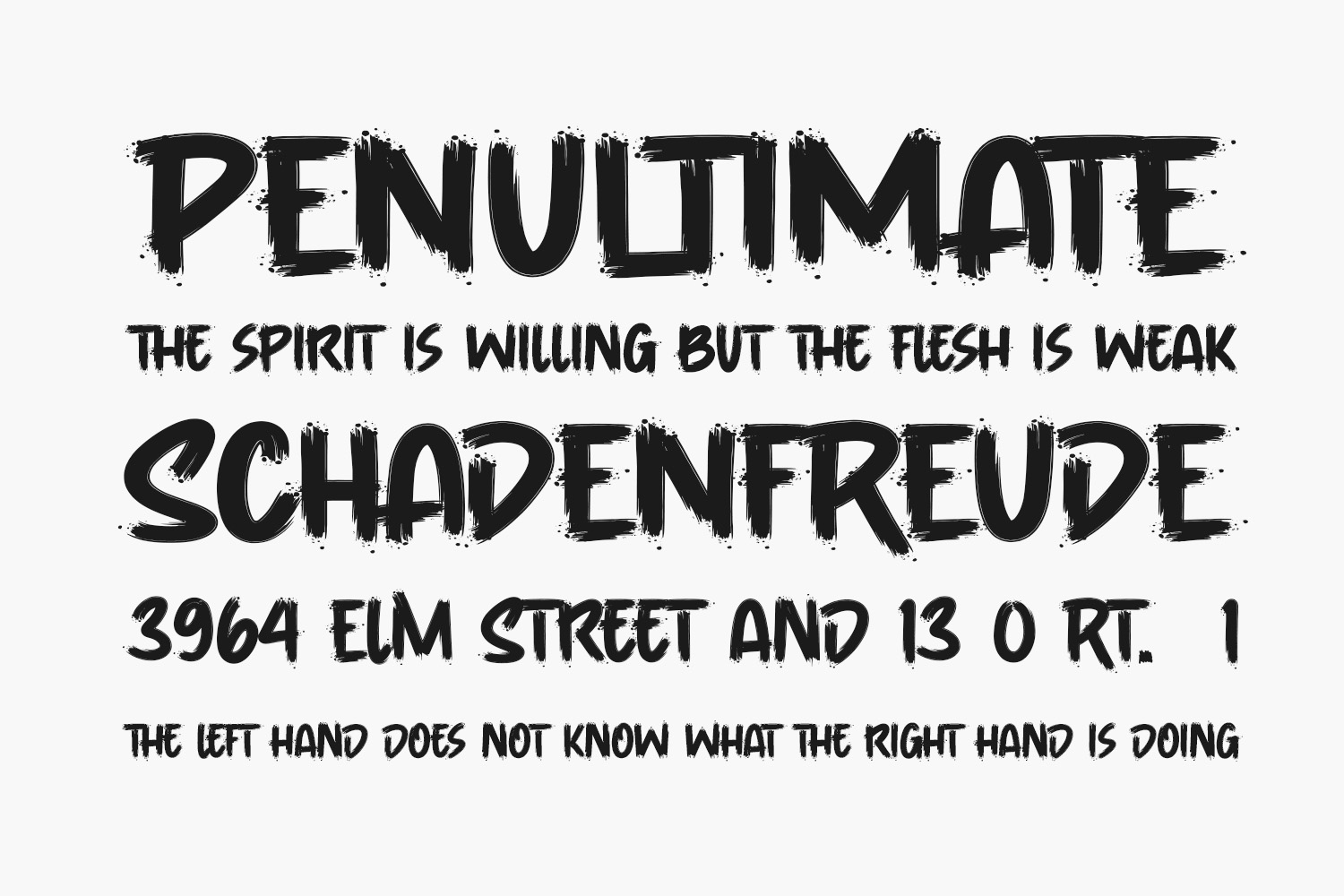
Vespertine Free Font is a cool, brushed display font. No matter the topic, this font will be an incredible asset to your fonts’ library, as it has the potential to elevate any creation. Vespertine Free Font was designed by Gassstype and is free for personal use only. Please purchase the full version for commercial use.